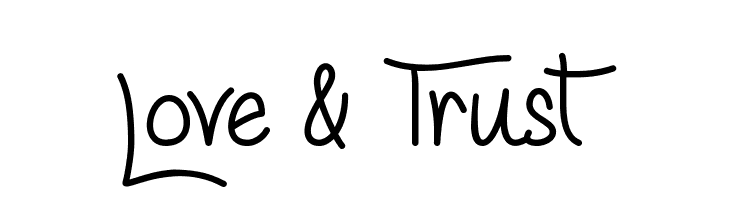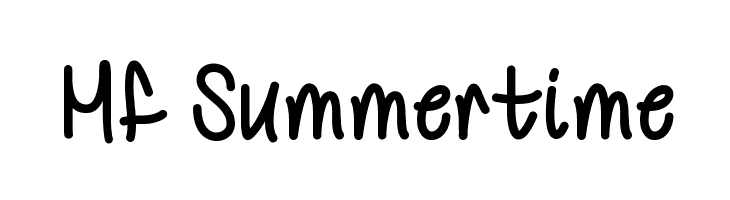
A playful handwritten font with a casual and friendly style.
A playful and whimsical script font with elegant, flowing curls and loops.
A whimsical and decorative script font with playful loops and bold strokes.
A playful, casual handwritten font with smooth, rounded edges.
A decorative font with characters enclosed in heart shapes, perfect for romantic themes.
A playful font with characters enclosed in heart shapes, ideal for romantic themes.
A playful, handwritten script font with a whimsical and friendly style.
A playful, heart-adorned handwritten font with a warm and inviting style.
A playful handwritten font with smooth, flowing lines and a casual appearance.
A playful, rounded font with a friendly and approachable style.
A playful, heart-themed decorative font with whimsical symbols and expressions.
A playful, bold font with rounded, thick strokes and a friendly appearance.
A bold, outlined decorative font with heart-shaped elements for a playful and romantic style.
A playful, handwritten-style italic font with smooth, rounded strokes.
A playful, rounded font with a friendly and approachable design.
A playful, hand-drawn font with quirky, irregular curves and a whimsical style.
A playful and whimsical script font with decorative swirls and a hand-drawn feel.
A playful, casual handwritten font with rounded, irregular letterforms.
A playful, rounded handwritten font with smooth curves and a friendly appearance.
A lively and flowing script font with elegant, connected letterforms.
A smooth, flowing script font with a natural handwritten style.
A playful, handwritten font with thin, elongated characters and whimsical elements.
A playful, handwritten font with rounded edges and a casual style.
A modern, rounded sans-serif font with a clean and approachable design.
A playful, modern font with elongated, narrow characters and decorative elements.
A playful handwritten font with fluid, cursive strokes and a whimsical style.
A playful and decorative font with whimsical symbols and dingbats.
A flowing, elegant cursive font with graceful curves and smooth connections.